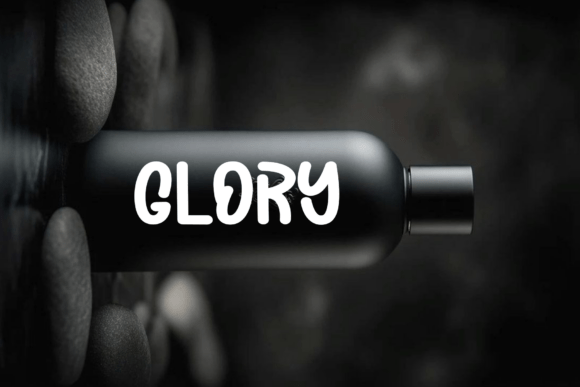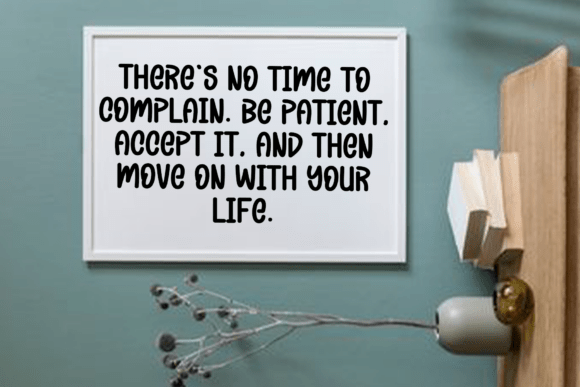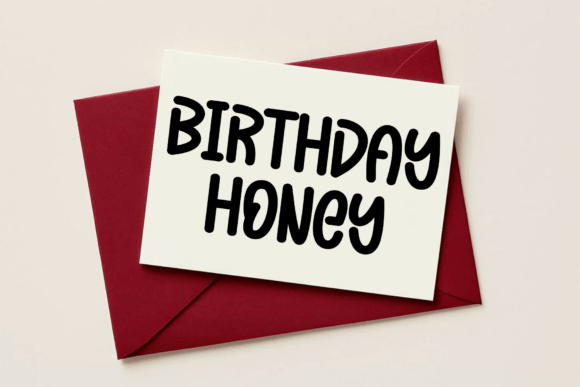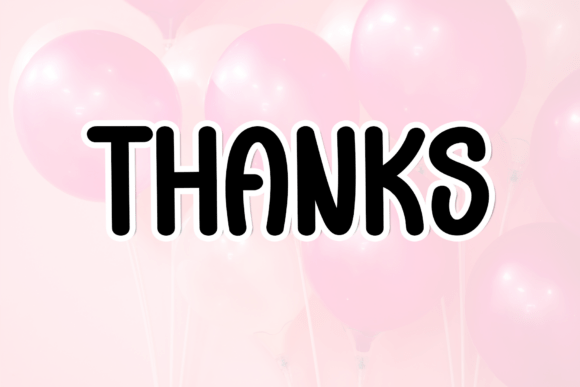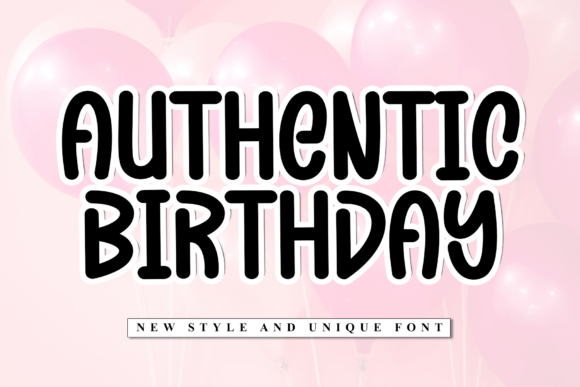
Introducing Authentic Birthday: The Perfect Font for Modern Designs
Are you tired of using the same old fonts for your designs? Look no further! Authentic Birthday is a casual and neat display font that combines simplicity with a friendly, approachable vibe. This stunning font is perfect for designers and crafters who want to add a warm and inviting touch to their branding, headlines, packaging, and digital content.
The Essence of Modern Handwritten Typography
Authentic Birthday captures the essence of modern handwritten typography with a polished finish. Its clean lines, balanced letterforms, and subtle rounded edges give it a unique and refreshing look. This font is ideal for designers who want to create a modern and sophisticated design without sacrificing warmth and personality.
Key Features of Authentic Birthday
- Clean Lines: Authentic Birthday features clean lines that give it a crisp and modern look.
- Balanced Letterforms: The font’s balanced letterforms ensure that each character is harmonious and visually appealing.
- Subtle Rounded Edges: The subtle rounded edges add a touch of warmth and friendliness to the font.
- Versatile Style: Authentic Birthday is a versatile font that can be used for a wide range of design applications, from branding and headlines to packaging and digital content.
Why Choose Authentic Birthday?
So, why choose Authentic Birthday for your next design project? Here are just a few reasons:
- Warm and Inviting: Authentic Birthday adds a warm and inviting touch to any design, making it perfect for brands that want to connect with their audience.
- Highly Legible: The font’s clean lines and balanced letterforms make it highly legible, even at small sizes.
- Easy to Pair: Authentic Birthday is easy to pair with other fonts, making it a great addition to any designer’s font library.
- Perfect for Digital Content: The font’s crisp structure and versatile style make it perfect for digital content, from social media graphics to website headers.
Design Applications for Authentic Birthday
Authentic Birthday is a versatile font that can be used for a wide range of design applications, including:
- Branding: Use Authentic Birthday to create a unique and memorable brand identity.
- Headlines: The font’s bold and playful style makes it perfect for headlines and titles.
- Packaging: Authentic Birthday is a great choice for packaging design, adding a touch of warmth and personality to any product.
- Digital Content: Use the font to create engaging and visually appealing digital content, from social media graphics to website headers.
Tips for Using Authentic Birthday
Here are a few tips for using Authentic Birthday in your designs:
- Experiment with Font Sizes: Authentic Birthday looks great at a range of font sizes, from large headlines to smaller body text.
- Pair with Other Fonts: Try pairing Authentic Birthday with other fonts to create a unique and visually appealing design.
- Use for Emphasis: Use Authentic Birthday to add emphasis to certain words or phrases in your design.
Authentic Birthday is a stunning display font that combines simplicity with a friendly, approachable vibe. With its clean lines, balanced letterforms, and subtle rounded edges, it’s perfect for designers and crafters who want to add a warm and inviting touch to their designs. Whether you’re creating branding, headlines, packaging, or digital content, Authentic Birthday is a great choice. So why not give it a try and see the difference it can make in your designs?